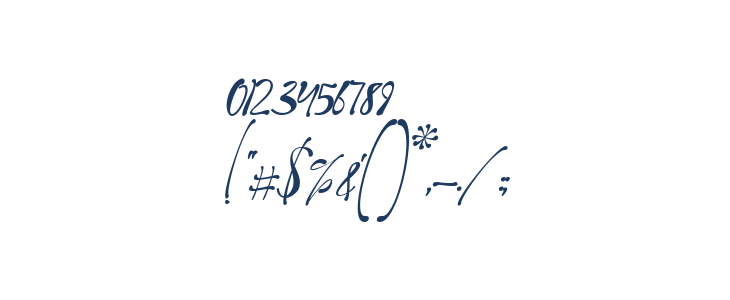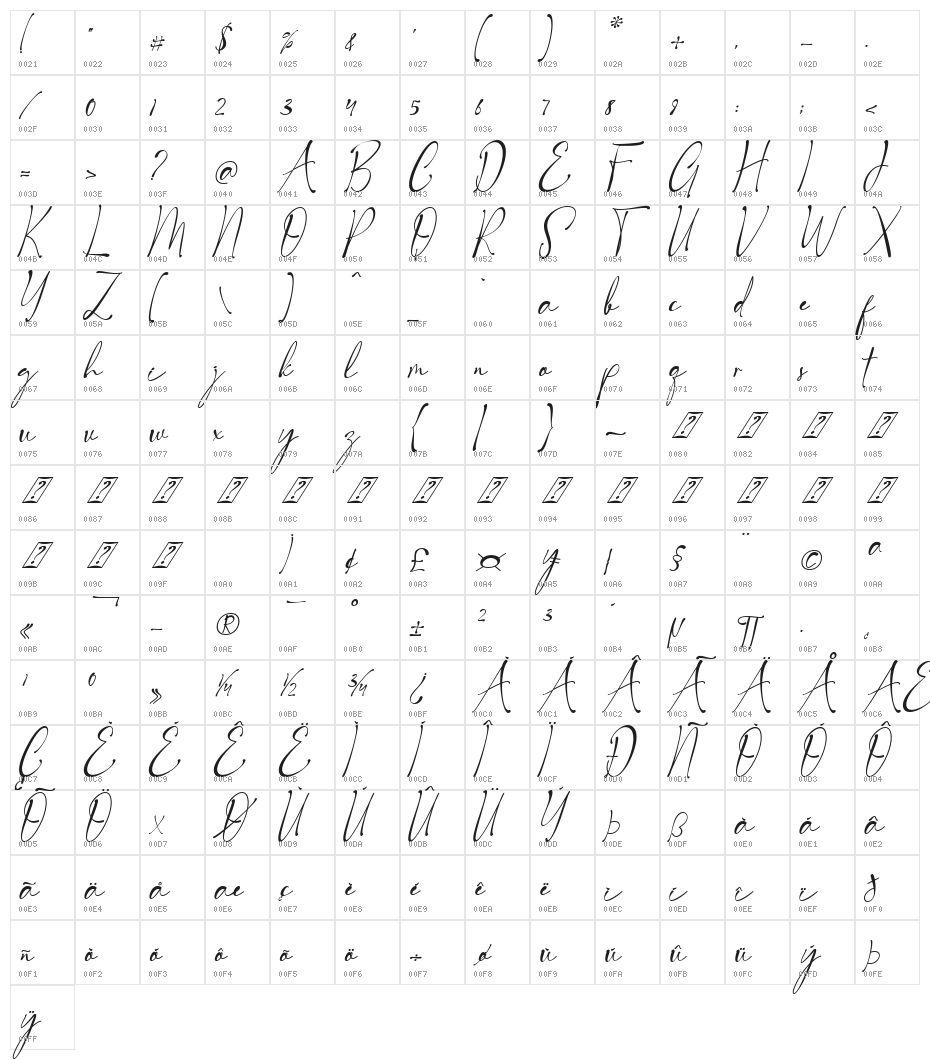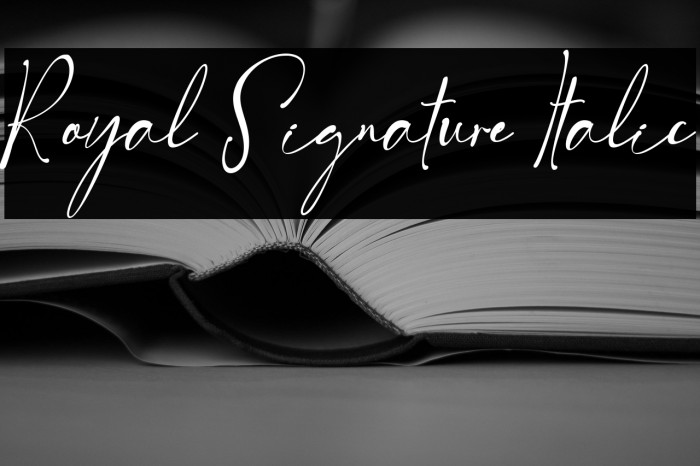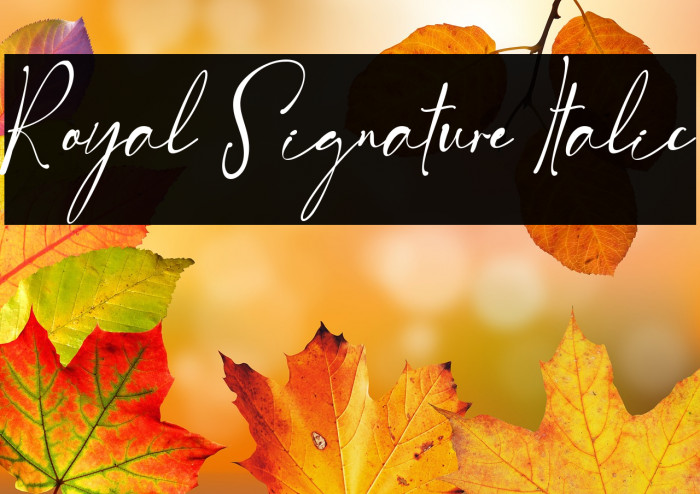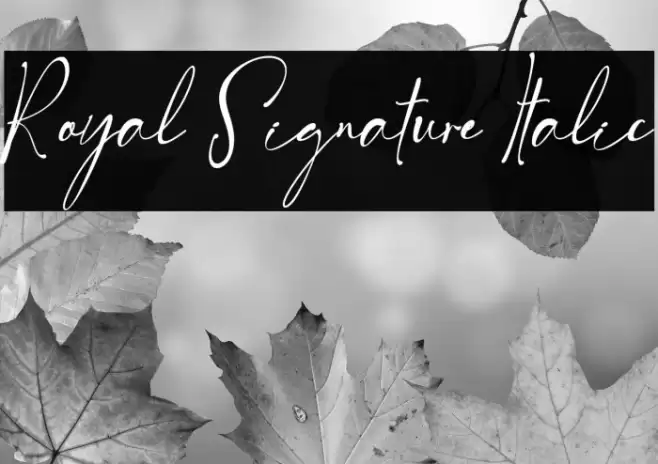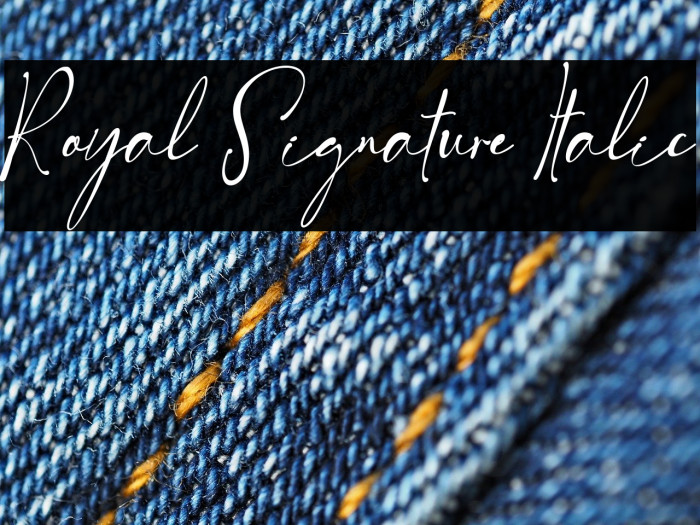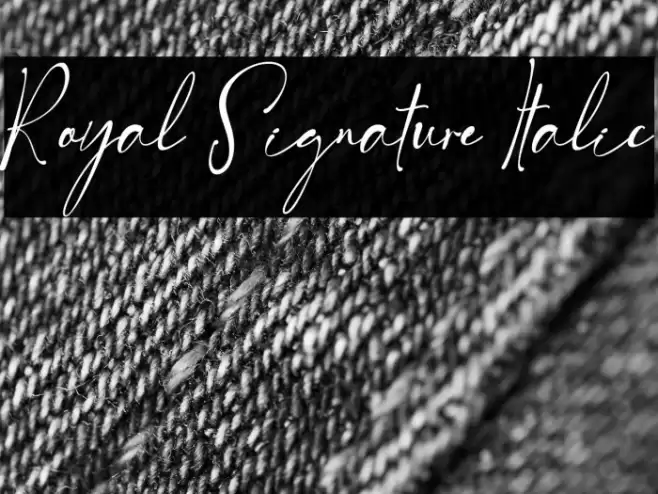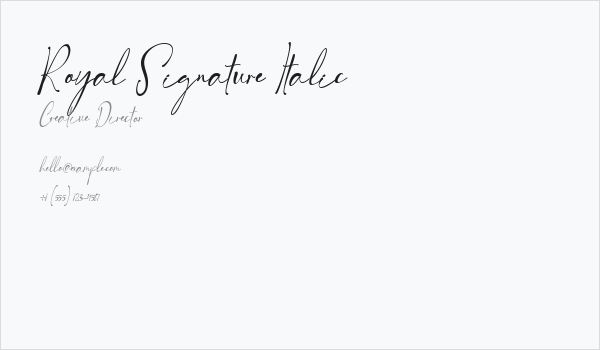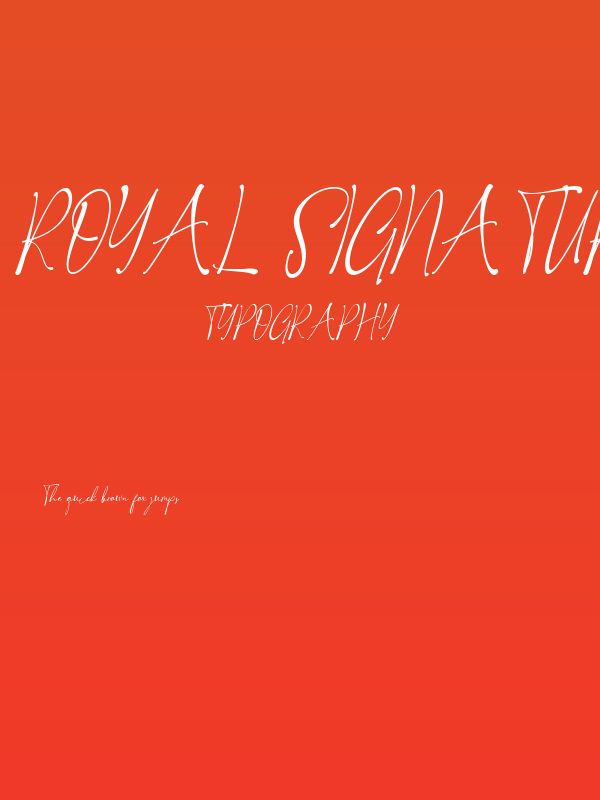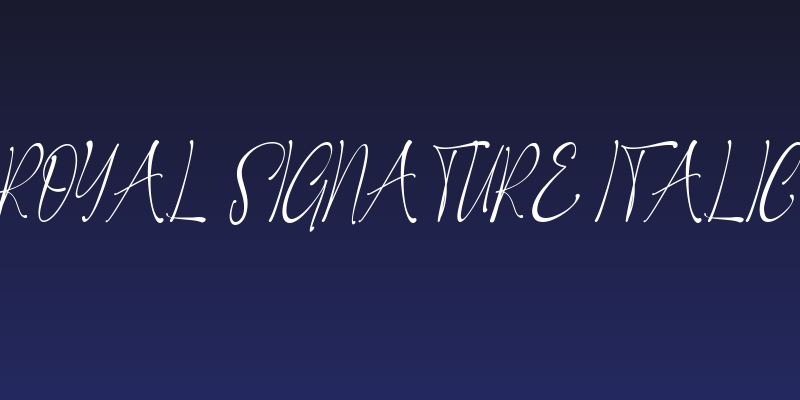
Royal Signature Italic Font
Royal Signature Italic Description
This font exudes elegance and sophistication with its flowing, cursive style. The letters are crafted with a smooth, continuous stroke that mimics the fluidity of handwriting. Uppercase letters are tall and graceful, while lowercase letters maintain a consistent slant, enhancing the overall script-like appearance. The numerals and special characters are designed to match the cursive theme, providing a cohesive look across all glyphs. The font's delicate lines and gentle curves make it ideal for projects that require a touch of refinement and personal flair.